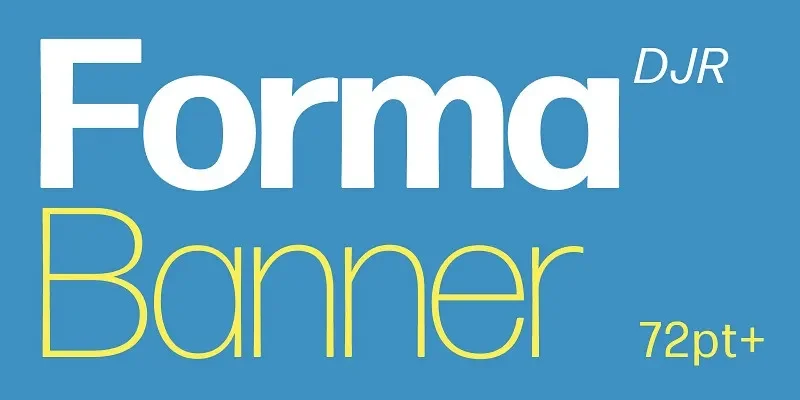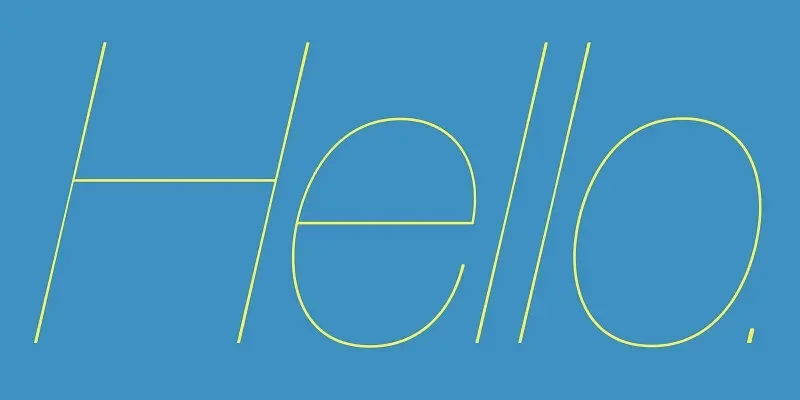
Forma DJR Banner Font Family supports designers who need bold headlines that stay consistent with body typography. Display fonts often clash with text families.
Forma DJR Banner is a display sans-serif font family designed to pair with Forma DJR Text. It features higher contrast, tighter spacing, and stronger vertical presence.